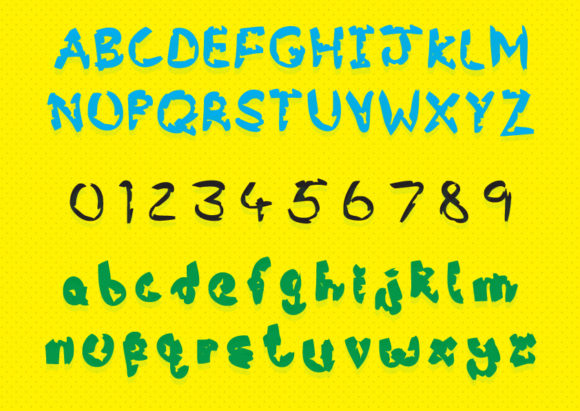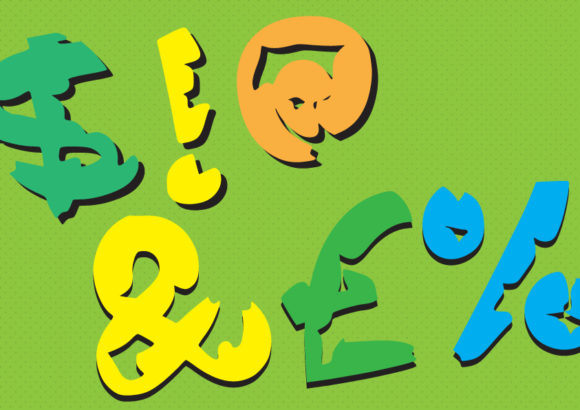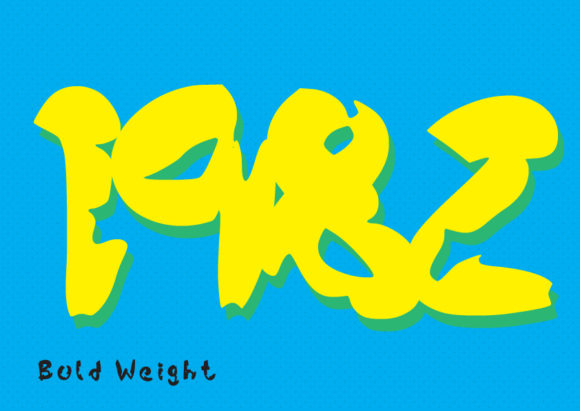
The Tropical Twist of Comic Palm Font: A Designer’s Delight
I’ll never forget the time I was working on a project for a beachside resort, and I just couldn’t find the right font to capture the laid-back, tropical vibe. The client wanted something fun, playful, and Instagram-worthy. That’s when I stumbled upon Comic Palm Font, and it was love at first sight! 🌴
Comic Palm is a cute script with a tropical feel that’s perfect for making any design project stand out. In this article, I’ll share my honest review, a practical guide on how to use it, and some similar font alternatives you might enjoy.
- ✨ Unique and playful tropical feel that’s hard to find in other fonts
- ✅ Easy to read and understand, even in smaller sizes
- 💕 Beautifully crafted with attention to detail and a clear design vision
- 🎉 Works well for a variety of design projects, from branding to social media graphics
While Comic Palm Font is an amazing addition to any design project, there are a few things to keep in mind:
- ⚠️ May not be the best choice for very formal or professional designs, as it has a distinctly playful tone
- 🤔 Limited use of uppercase letters, which can make it less suitable for certain types of text
- Experiment with OpenType features, such as glyphs and stylistic alternates, to add more personality to your text
The Story Behind Comic Palm Font
While the true story behind Comic Palm Font may be unknown, it’s easy to imagine that it was inspired by the sunny, tropical landscapes of the Pacific Islands. Perhaps the designer was sipping coconut water on a beachside vacation, brainstorming ways to capture the carefree spirit of the islands in a font. Whatever the inspiration, the result is a beautiful, one-of-a-kind script that’s sure to bring a smile to your face.
Q: What type of designs is Comic Palm Font best suited for?
A: Comic Palm Font is perfect for designs that need a playful, tropical touch, such as branding, social media graphics, and summer-themed projects.
Q: Is Comic Palm Font easy to read?
A: Yes, Comic Palm Font is designed to be easy to read, even in smaller sizes. However, it’s best suited for short to medium-length text, rather than large blocks of text.